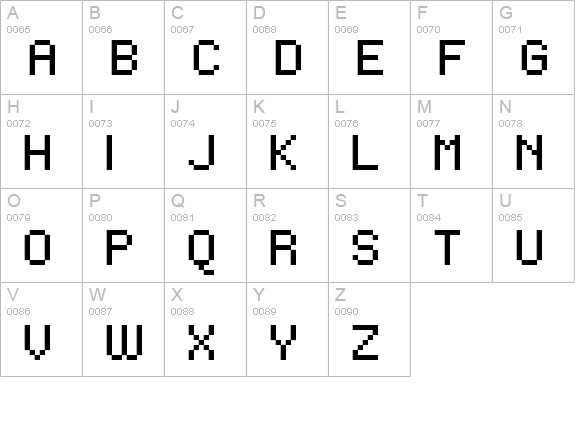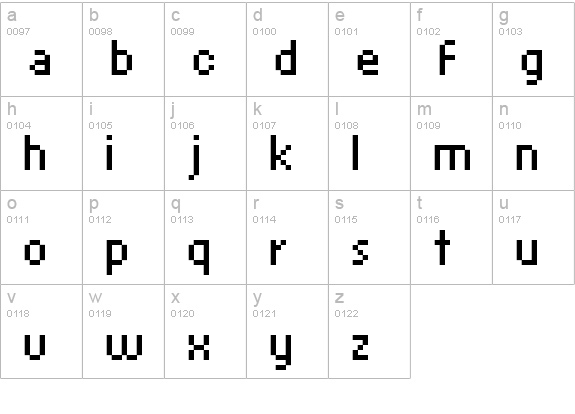
FFF Urban Extended Font Details
FFF Urban Extended is a distinctive, extended-width variant in the FFF typeface family \xE2\x80\x94 well suited to design and typography projects.
The FFF Urban Extended font is a modern and stylish typeface designed for urban and contemporary design projects. This font features clean lines and sharp angles that give it a sleek and edgy look. With its bold and eye-catching appearance, FFF Urban Extended is perfect for creating impactful headlines, posters, and branding materials. Best of all, this font is available for free download at FontsMarket.com. Whether you're a designer looking to add a fresh touch to your projects or a creative individual seeking a unique font for personal use, FFF Urban Extended is a versatile and accessible option. Download it today and unleash your creativity with this fantastic font!